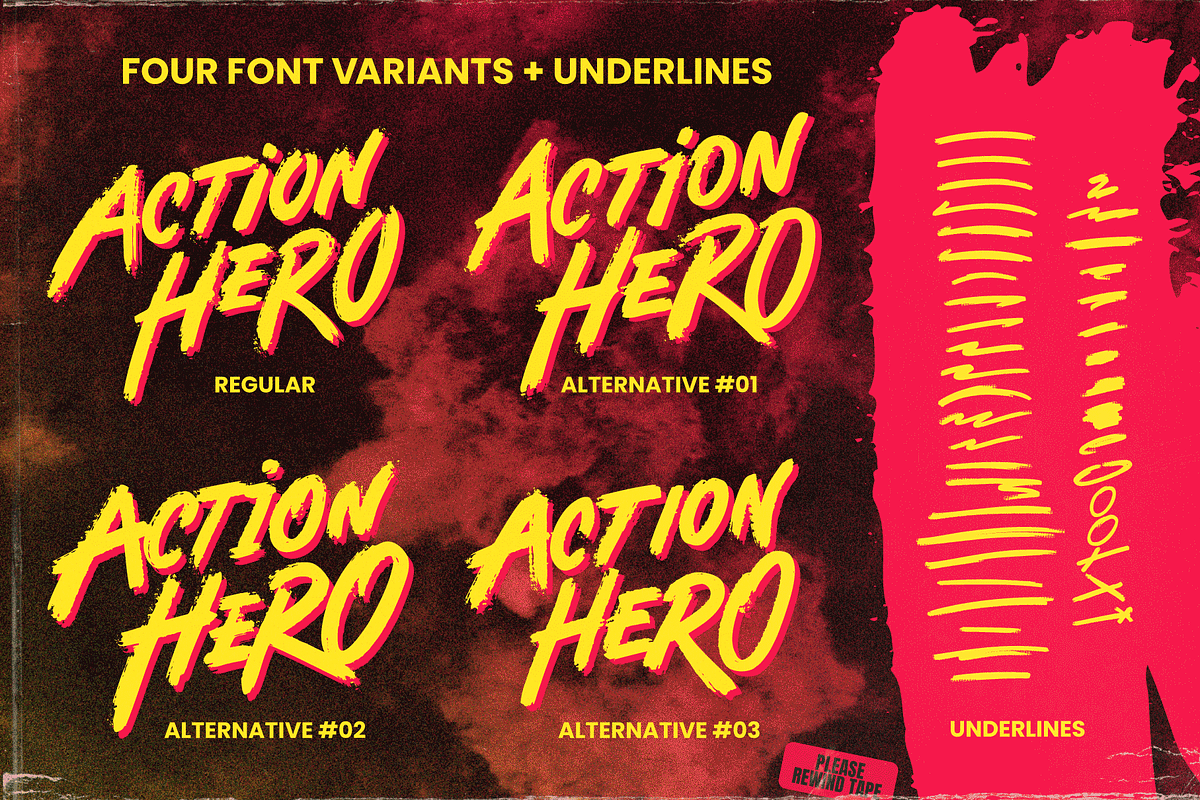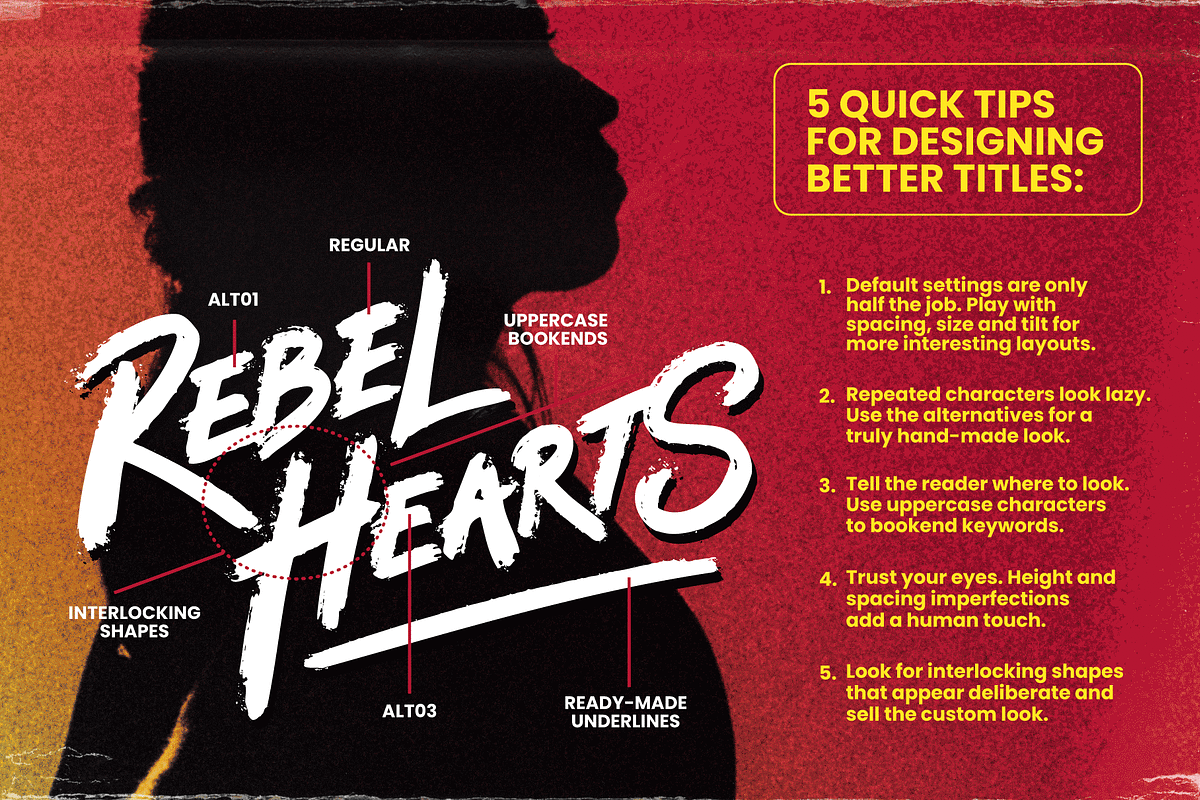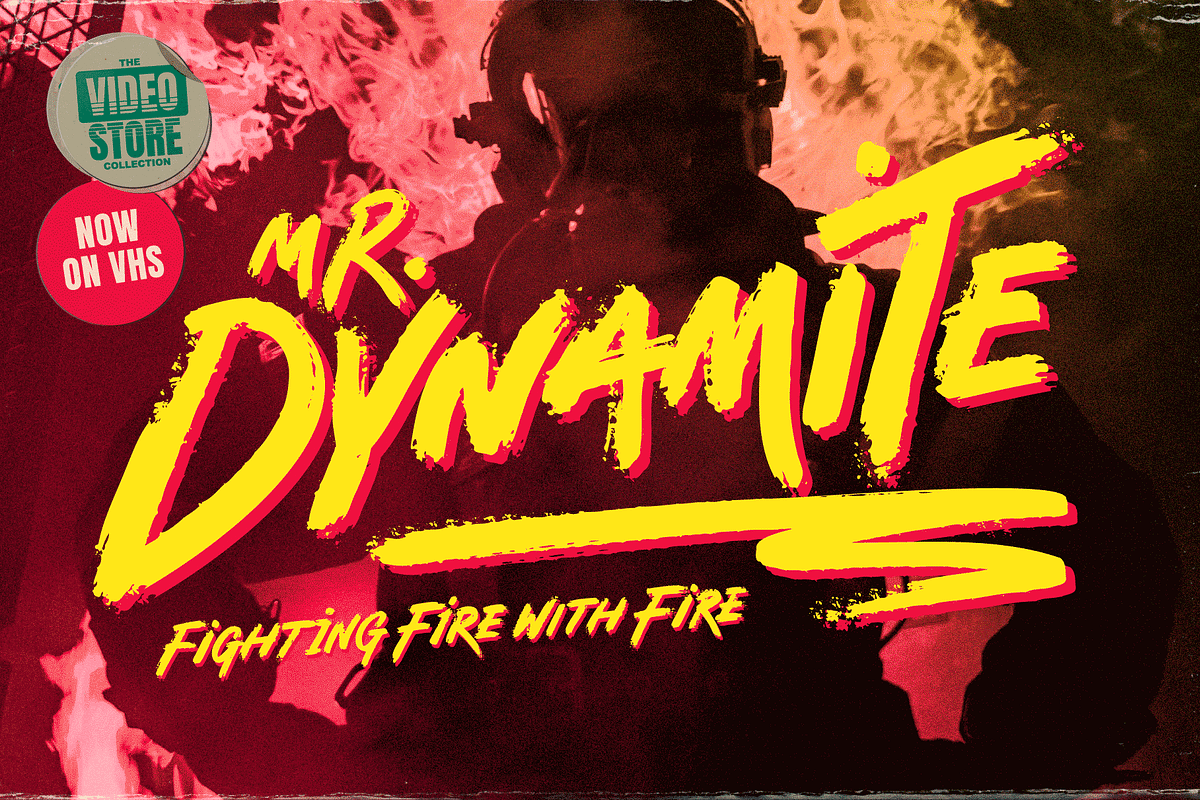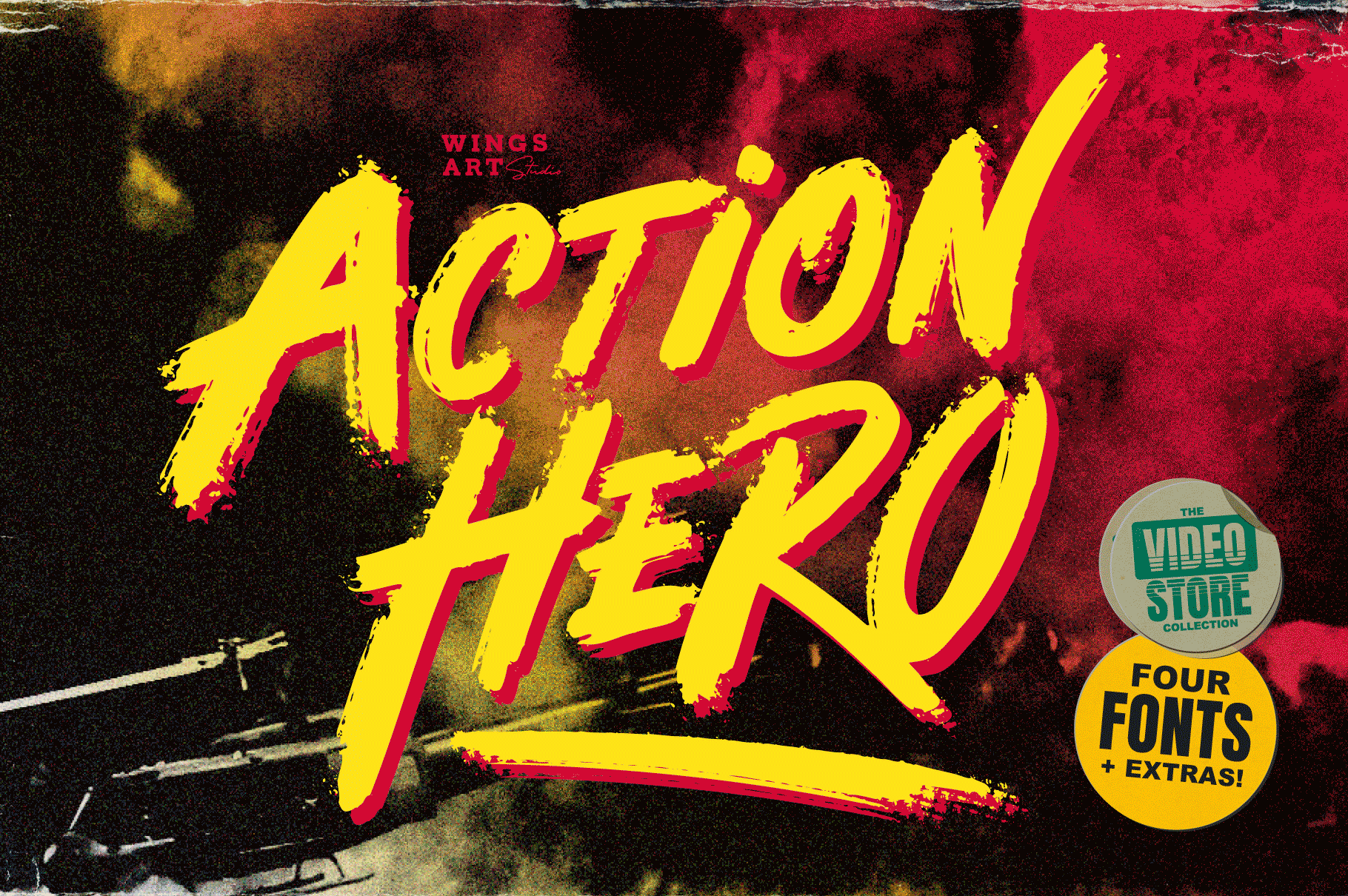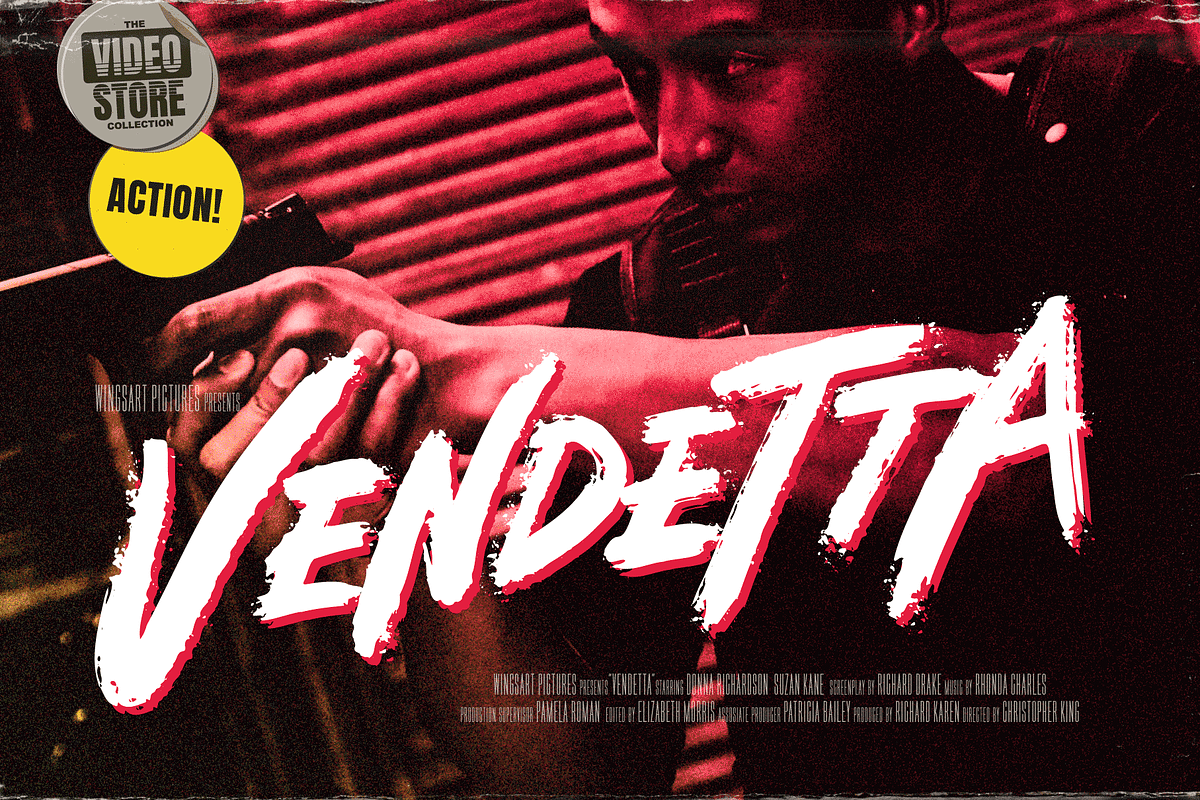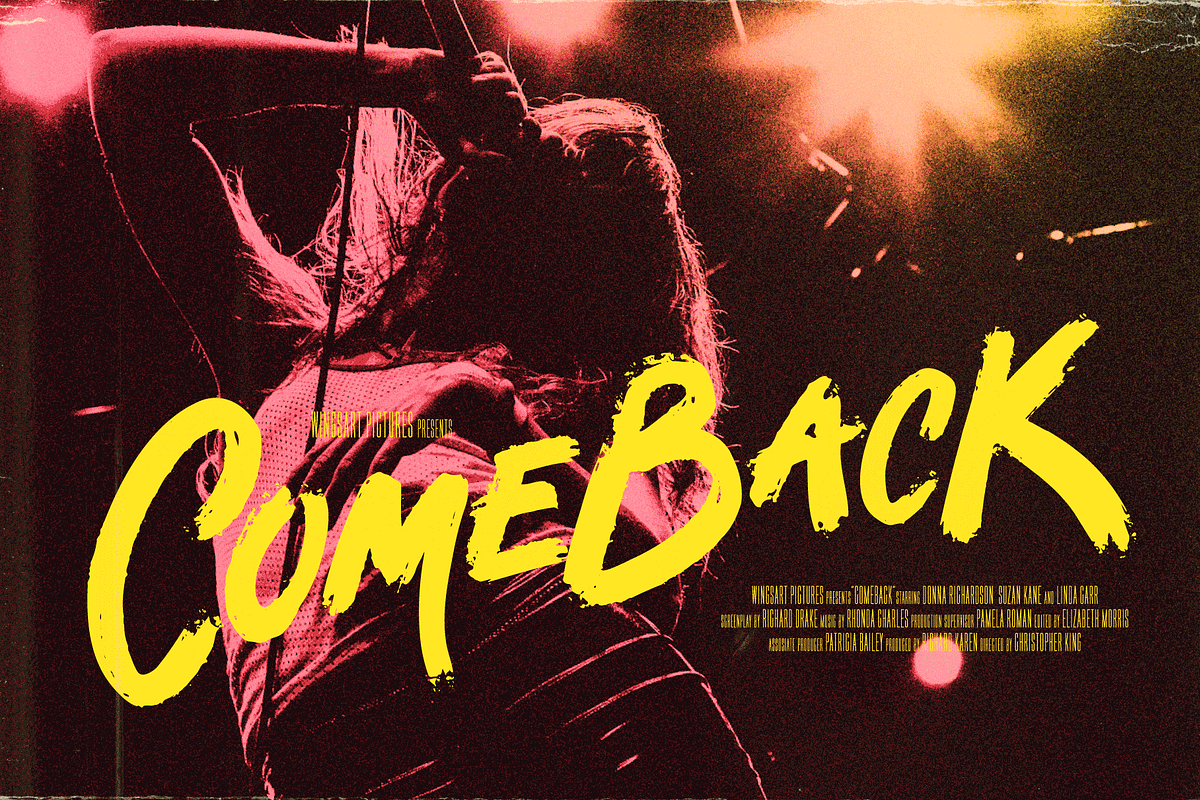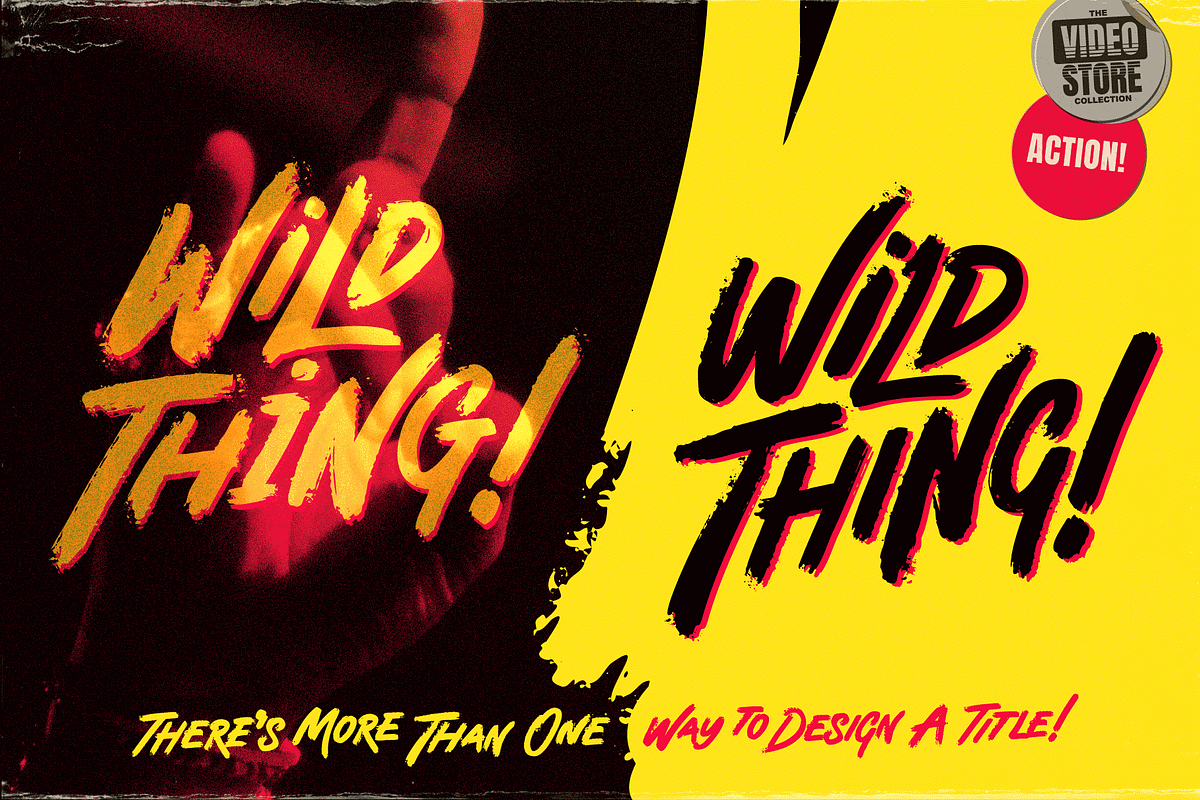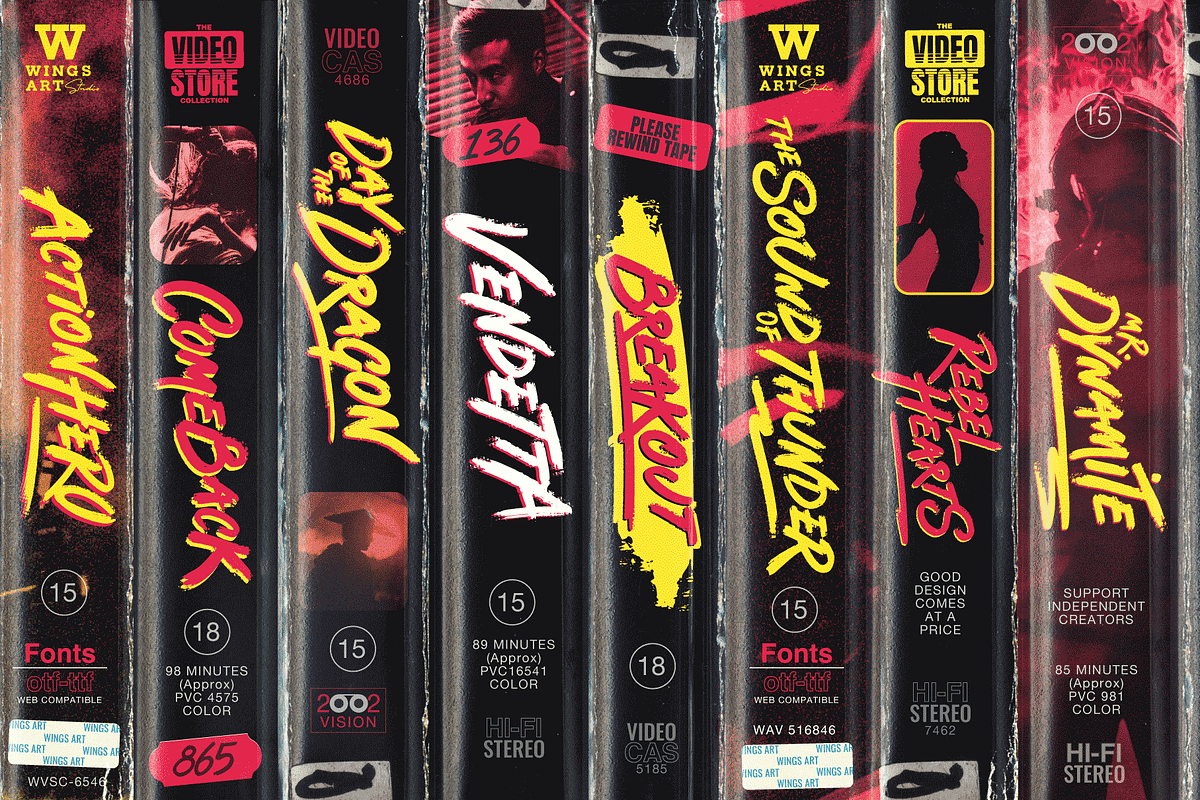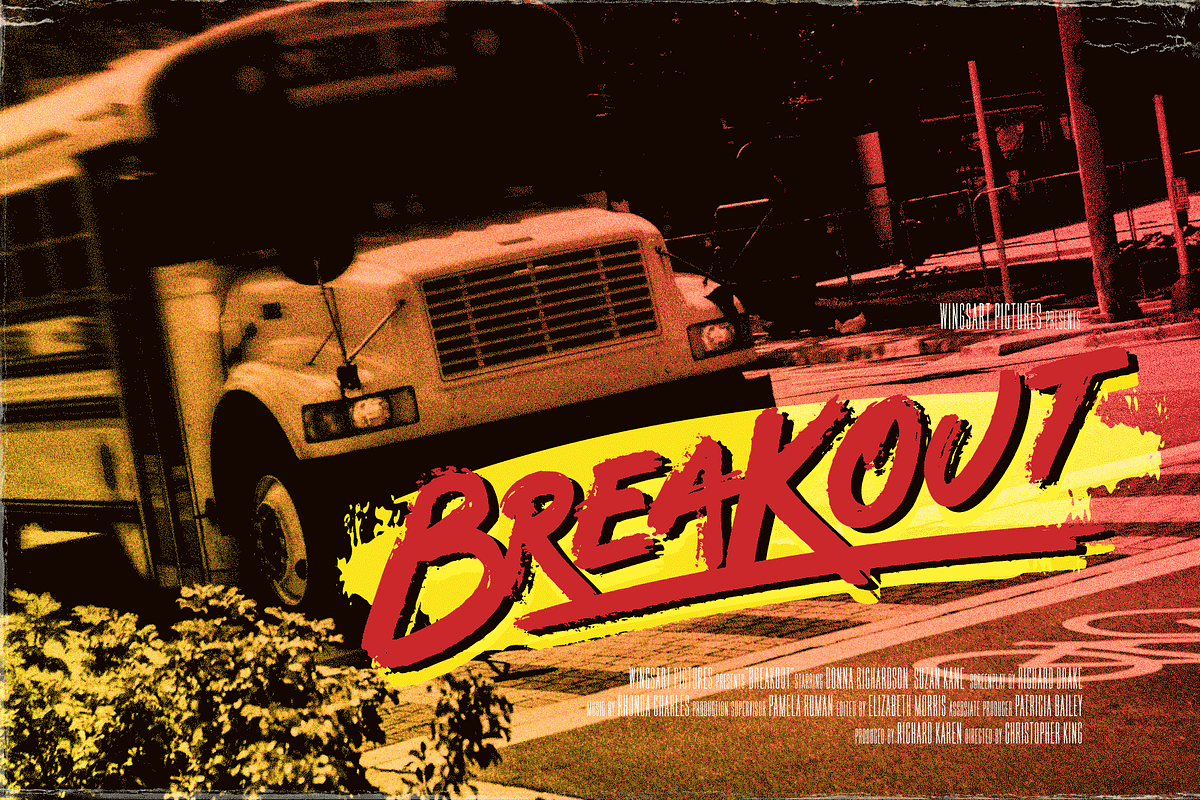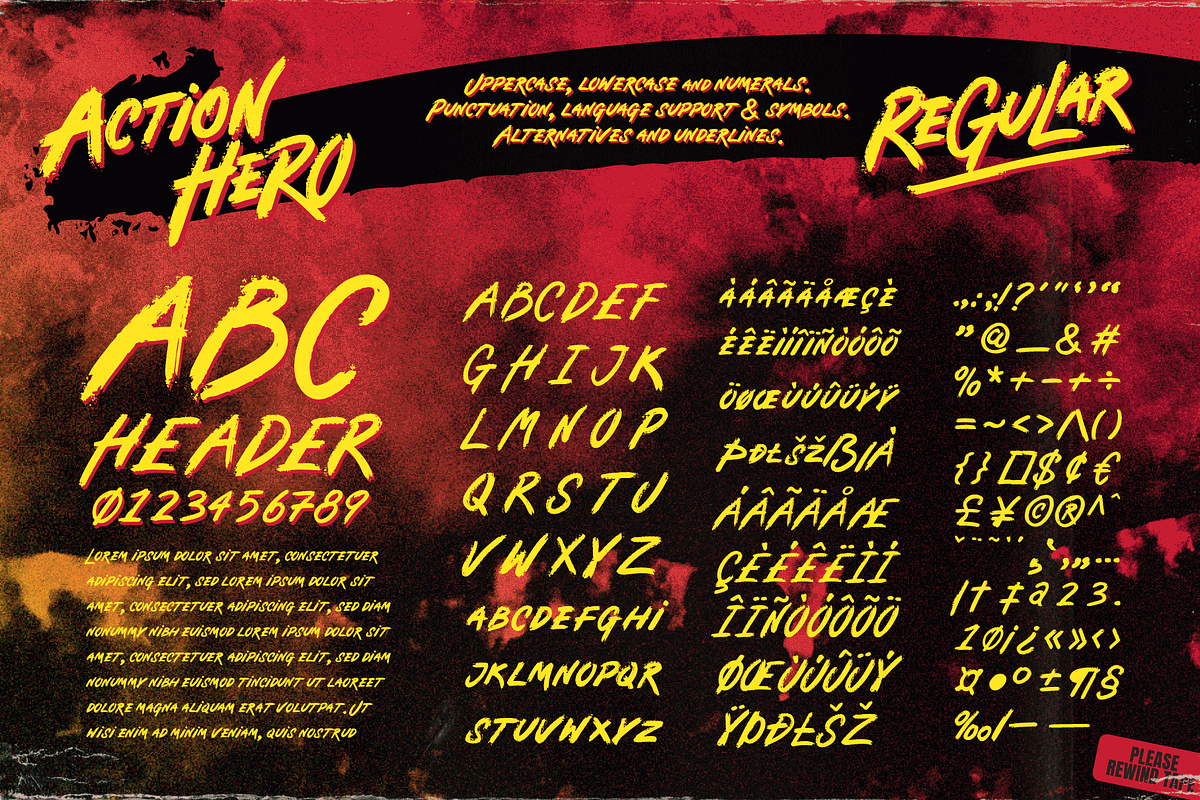
Action Hero - 80s Movie Poster Font
Action Hero - An Explosive Movie Title Poster Font
A grungy, textured brush font for action packed movie posters and titles.
Action Hero is a hand-drawn brush font inspired by action movie posters of the 1980s and 90s. Does your movie feature a hostage situation on a speeding bus or train? Try Action Hero. How about a one man army tasked with rescuing stranded POWs? Try Action Hero! Maybe a post-apocalyptic race across the desert, or did they dare to kill your favourite second cousin? Big mistake - Get Action Hero!!!
The Action Hero font family collects four all-cap variants featuring a complete set of uppercase and lowercase characters, along with numerals, punctuation, language support and underlines. With so many creative options you'll never have to repeat characters (a personal bugbear with hand-drawn fonts) and achieve authentic hand-drawn looking title designs.
Check out the visuals for ideas and tips on how to use this font on posters, movie titles, product packaging, broadcast and advertising. With countless creative options and a design that explodes off the screen, this is the last action hero font you'll ever need!